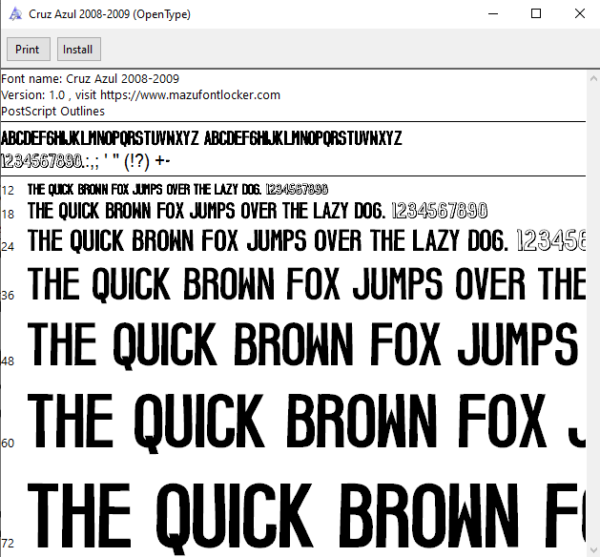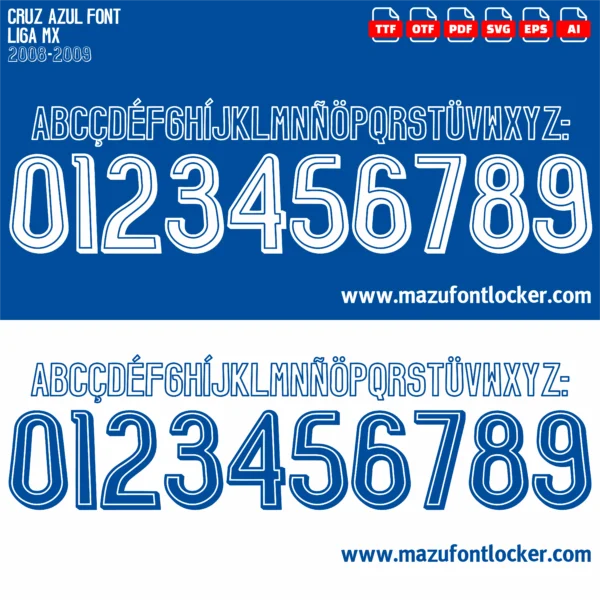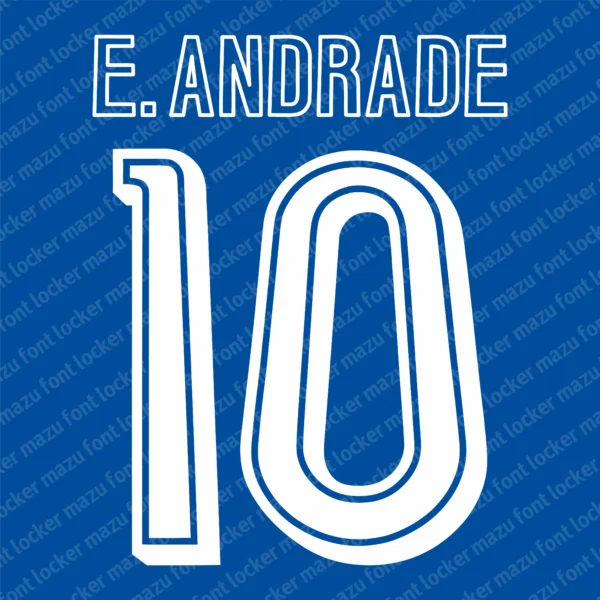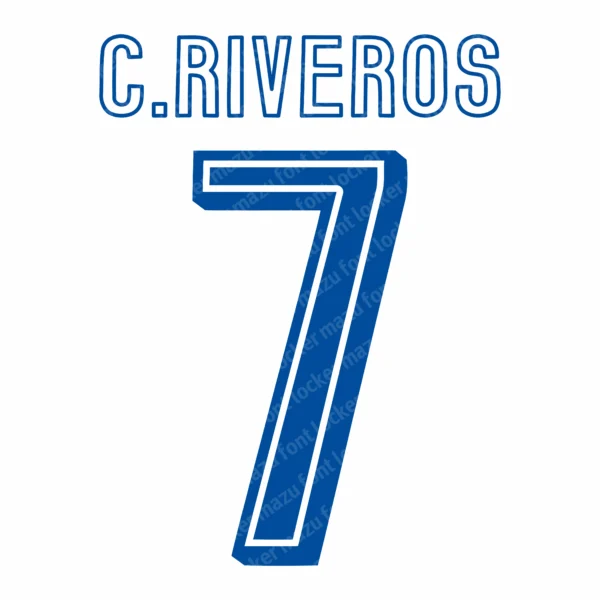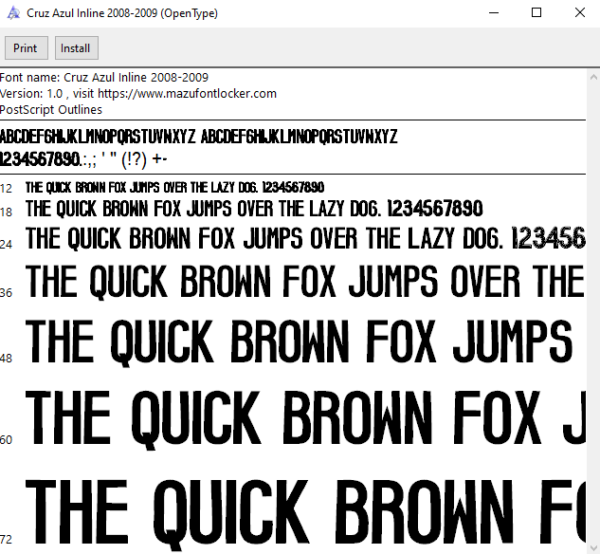
Cruz Azul 2008-2009 Font Vector – Stunning Bold & Dynamic Typeface
The Cruz Azul 2008-2009 Font Vector is a premium typeface that accurately recreates the distinctive match lettering associated with Cruz Azul during the 2008-2009 football season. This high-quality vector font kit captures the bold, clean, and instantly recognizable typography that perfectly complements the club’s iconic identity across Mexico’s top flight.
Designed for professional designers, football enthusiasts, jersey collectors, and passionate Cruz Azul supporters, the Cruz Azul 2008-2009 Font Vector delivers exceptional authenticity for creating realistic jersey mockups, football merchandise, social media graphics, match posters, squad designs, and custom fan artwork. Every character has been carefully recreated to reflect the powerful and precise visual style of La Máquina during one of their most memorable campaigns.
Why Choose Cruz Azul 2008-2009 Font Vector
This font stands out thanks to its precise vector construction and authentic club-inspired styling. Every letter and numeral has been meticulously recreated to match the distinctive football lettering aesthetic associated with Cruz Azul during the 2008-2009 season and its domestic and continental campaign.
Whether you’re producing professional football kit templates, custom jersey concepts, or eye-catching football content, the Cruz Azul 2008-2009 Font Vector delivers a genuine match-ready appearance inspired by the identity of one of Mexico’s most historic clubs.
The lettering featured in the Cruz Azul 2008-2009 Font Vector combines clean geometric lines with bold modern proportions. The result is a premium and highly readable typeface that reflects the proud football heritage of Cruz Azul, its passionate fanbase, and the unique character of Mexican football culture.
• Complete uppercase A–Z alphabet and numbers 0–9 in authentic Cruz Azul 2008-2009 inspired style
Cruz Azul 2008-2009 Season
The 2008-2009 season marked a dramatic chapter for Cruz Azul as the club reached the Apertura final and the CONCACAF Champions League final. Despite finishing the overall league campaign in 16th place with 39 points, La Máquina produced memorable runs on both the domestic and continental stage, finishing as runners-up in the Apertura after a dramatic penalty shootout against Toluca and falling short against Atlante in the Champions League final.
The club’s strong identity, combined with the passion of its supporters, continues to represent the unique character of Mexican football culture. Cruz Azul remains one of the most recognizable clubs in Liga MX history, with a loyal fanbase and a rich tradition of competing at the highest level.
The Cruz Azul 2008-2009 Font Vector is inspired by the distinctive football typography and visual identity associated with this campaign, making it an excellent choice for designers creating custom jersey concepts, football posters, squad graphics, matchday artwork, and fan-made projects.